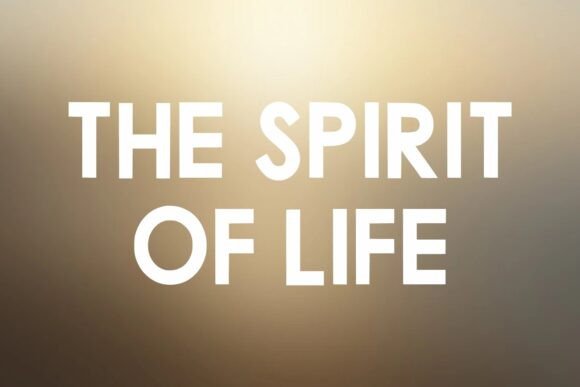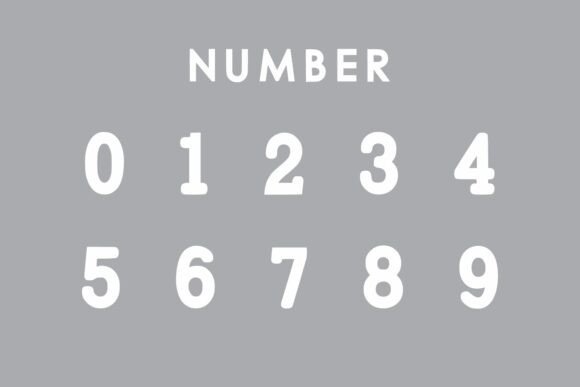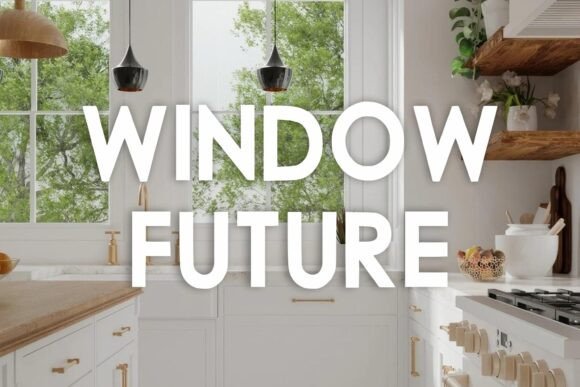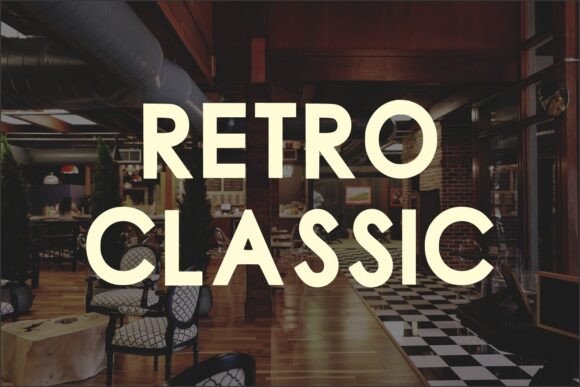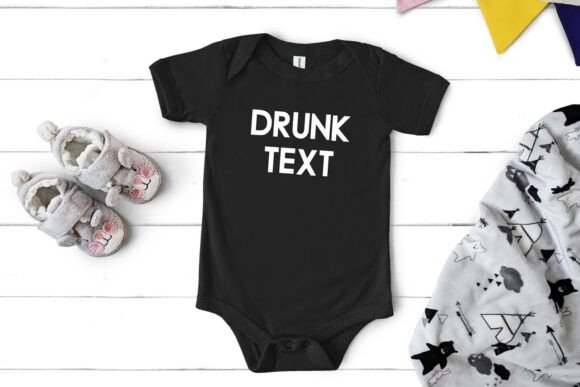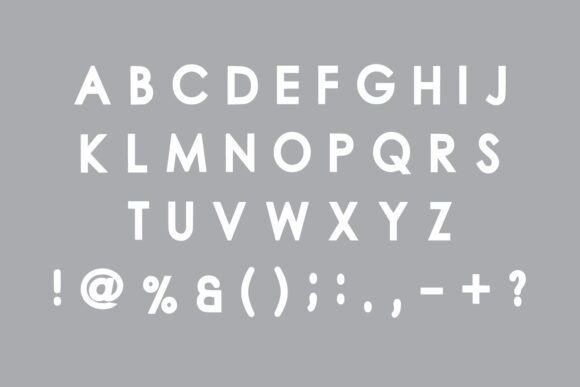
The Perfect Font for Your Next Big Project
Have you ever stared at a blank page, waiting for the perfect font to come to you? I know I have. It’s that moment of creative uncertainty where you’re searching for the perfect combination of style and substance. For designers, finding the right font can be the difference between a project that shines and one that falls flat. That’s where the Boulder Limited Font comes in – a bold sans serif font that exudes strength and confidence.
This font’s clean, straight lines and geometric shapes make it a modern and sleek choice for any design project. With consistent stroke weight and letter spacing, it’s easy to read at any size, making it a valuable tool for designers who want to make a statement without sacrificing readability. Whether you’re designing a logo, brochure, or website, the Boulder Limited Font is a great choice to consider.
Boulder Limited Font Key Features
- Unique Characteristics: The Boulder Limited Font features a unique, modern design with clean lines and a neutral color palette, making it suitable for a wide range of applications, from corporate branding to digital publishing.
Boulder Limited Font Review
Overall, I found the Boulder Limited font to be a decent addition to any design project. ✨ Its modern aesthetic and clean lines make it suitable for a variety of applications, from digital displays to print materials.
- ✨ High legibility: The font is easy to read, even at smaller font sizes.
- ✨ Customizability: Boulder Limited comes in multiple weights and styles, making it easy to find the perfect fit for your project.
- ✨ Professional look: The font exudes a sense of sophistication and elegance, perfect for corporate or business-related designs.
- ⚠️ Limited character set: While the font has a decent character set, it’s not as comprehensive as some other fonts.
- ⚠️ Not suitable for complex text: Due to its clean and minimalist design, Boulder Limited may not be the best choice for projects with complex or dense text.
Overall, I’d recommend Boulder Limited for projects that require a modern and professional look. While it has some limitations, its strengths make it a solid choice for designers looking for a clean and legible font.
For the best results, use Boulder Limited Font in conjunction with bold or italic styles to add emphasis to your text.
Experiment with different font sizes to create visual interest and hierarchy in your designs.
Boulder Limited Font is ideal for:
- Body text in a modern or minimalist design
- Brand identity and logos
Comparison: Rockwell is more classic and traditional in its design, whereas Boulder Limited has a more modern feel. Rockwell is also more suitable for longer texts and formal documents.